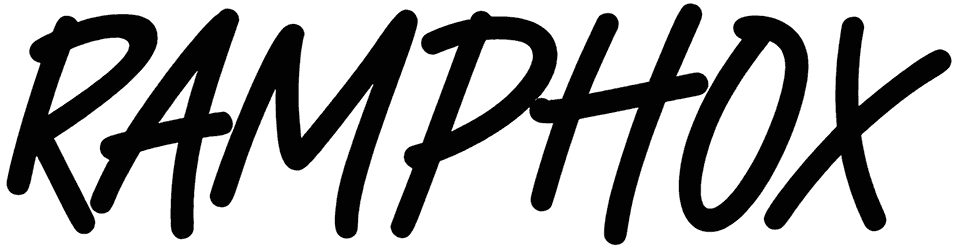
Ramphox Font
Sometimes, adding a personalized touch to your graphic content, such as posters, logos, flyers, menus, or brochures, might elevate them to the next level of quality, and in this way, a script font like Ramphox would help you to achieve this goal.
Despite the fact that it doesn’t support lowercase letters, this handwritten font can add a sense of professionalism, disorder, precision, and playfulness to your works.
RAMPHOX strong display font. With extra attention to fast and straightforward streaks,
RAMPHOX is guaranteed to deliver hard and fast messages for logos, clothing, quotes
product packaging, or anything that requires a turbo typographic boost.